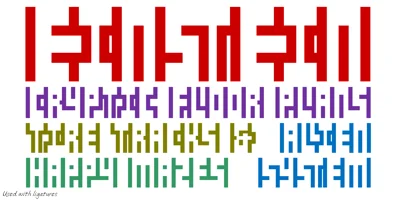
Jesus Saves Font
Jesus Saves Font is ideal for religious publications, church communications, spiritual branding, Christian organizations, faith-based materials, inspirational designs, and sacred visual communications. This reverent typeface brings spiritual dignity and faithful expression to religious design projects.
Jesus Saves Font is exciting because it embodies spiritual reverence with its sacred letterforms that convey faith and devotion while maintaining exceptional readability and inspirational appeal across religious and spiritual applications.
The Jesus Saves Font family includes regular and decorative variations with spiritual character elements and faith-inspired styling details. This sacred collection provides designers with reverent options for creating meaningful and spiritually uplifting brand experiences.
Jesus Saves Font provides access to a reverently crafted typeface that captures the essence of Christian faith and spiritual devotion. This sacred font features thoughtfully designed letterforms with spiritual details that create immediate associations with religious faith, divine inspiration, and Christian values. The typeface showcases reverent proportions and sacred aesthetics that enhance religious communications while maintaining professional functionality and broad accessibility. Its spiritual character makes it particularly suitable for churches and faith-based organizations that require typography capable of conveying religious devotion, spiritual inspiration, and Christian authenticity. Jesus Saves Font delivers exceptional spiritual impact for applications where secular fonts feel inappropriate for sacred communications and religious messaging. The font's faithful appeal and sacred aesthetic make it an essential tool for designers working on projects that require typographic expression of Christian faith, spiritual devotion, and religious inspiration that resonates with audiences seeking authentic spiritual experiences and meaningful religious communication.